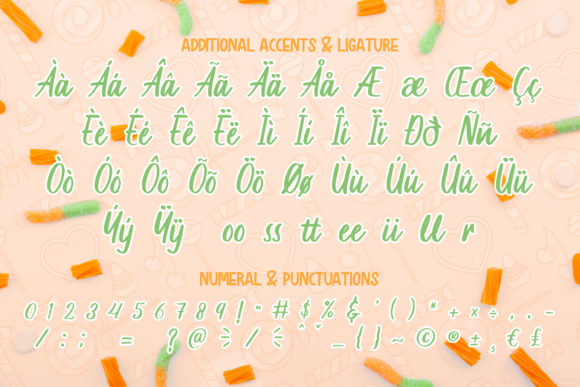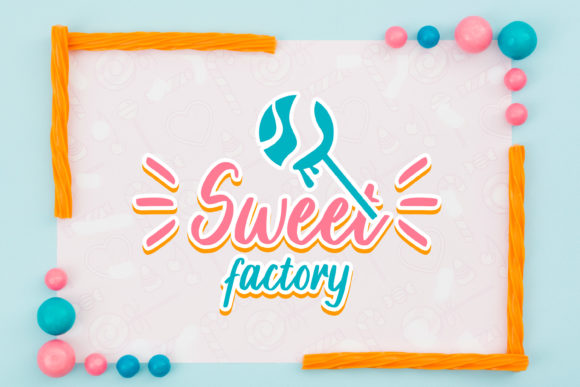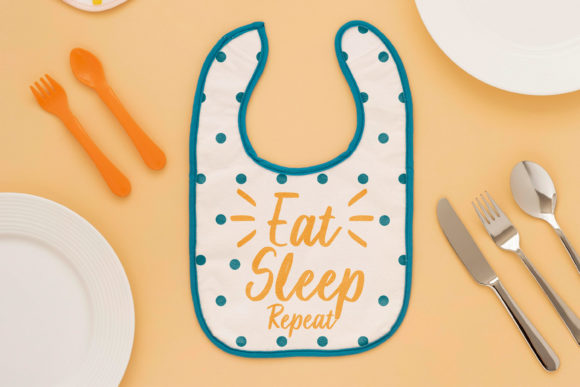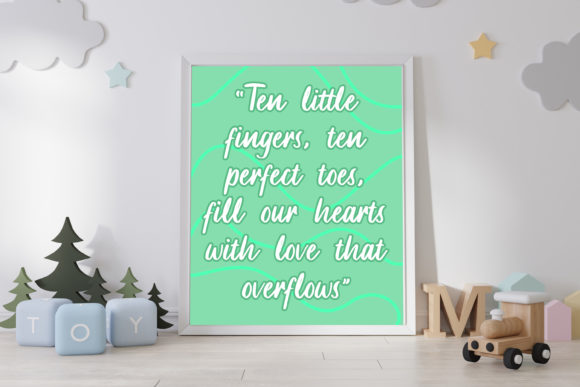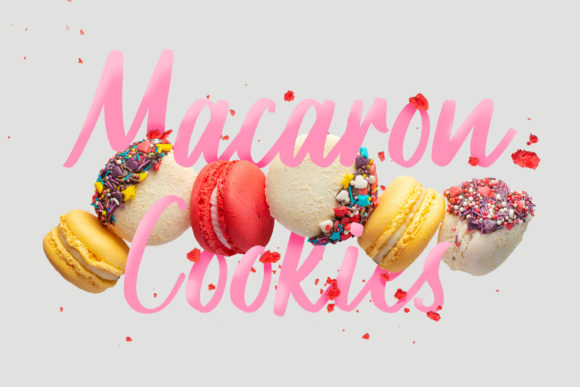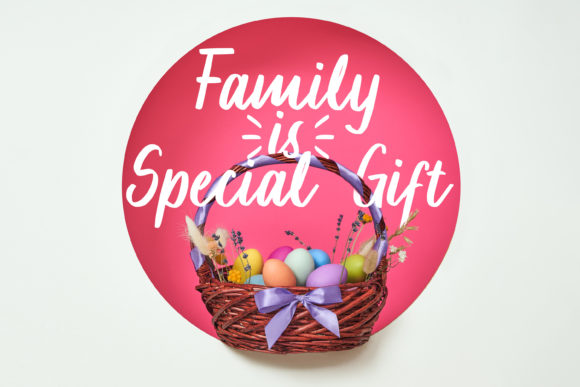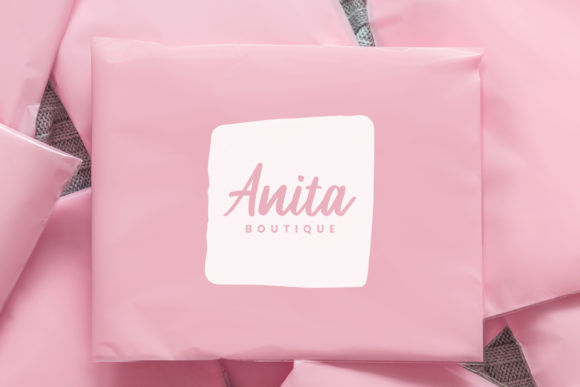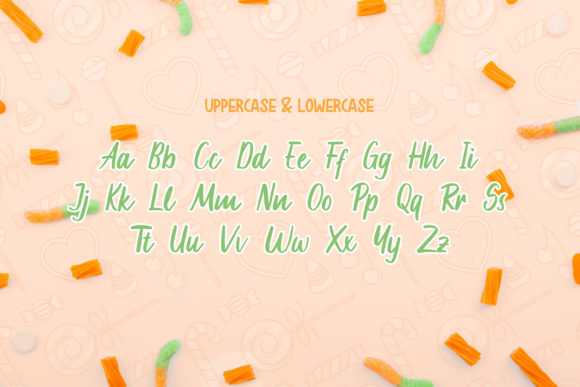
Mochalosta Font
About Mochalosta Font
Mochalosta is a font that exudes cuteness and friendliness in its delightful handwritten style. With its versatile nature, this script font becomes the perfect choice for a wide range of design applications, from greeting cards to kids’ crafts, and everything in between. It is guaranteed to add a sweet and charming touch to your next design.
The cute handwritten style of Mochalosta brings a sense of playfulness and warmth to your designs. Each letter carries the essence of a friendly handwritten note, making your work stand out with a touch of authenticity and cheerfulness.
With Mochalosta as your creative tool, you have the freedom to explore various design ideas. Whether you’re crafting greeting cards that spread joy, working on kids’ craft projects that spark creativity, or designing playful social media graphics, Mochalosta adapts effortlessly to bring a sense of sweetness and charm to your work.
Embrace the versatility of Mochalosta and witness how it transforms your designs into heartwarming works of art. Its cute and friendly style adds a touch of endearment, making your designs truly lovable and captivating.
Discover the joy of creating with Mochalosta as your trusted companion. Let its cute and friendly appearance be the key to unlocking your creativity and infusing your work with a sense of warmth and happiness.
Whether you’re designing for personal projects or professional endeavors, Mochalosta is the font that adds that extra touch of flair and charm to your creations. Embrace the playful spirit of Mochalosta and witness how it enhances the appeal and impact of your designs, making them truly special and unforgettable.
Let Mochalosta be the font that sparks your inspiration and brings a touch of cuteness and friendliness to your designs. Experience the magic of Mochalosta and witness how it elevates your creative projects, making them heartwarming and delightful to everyone who sees them.